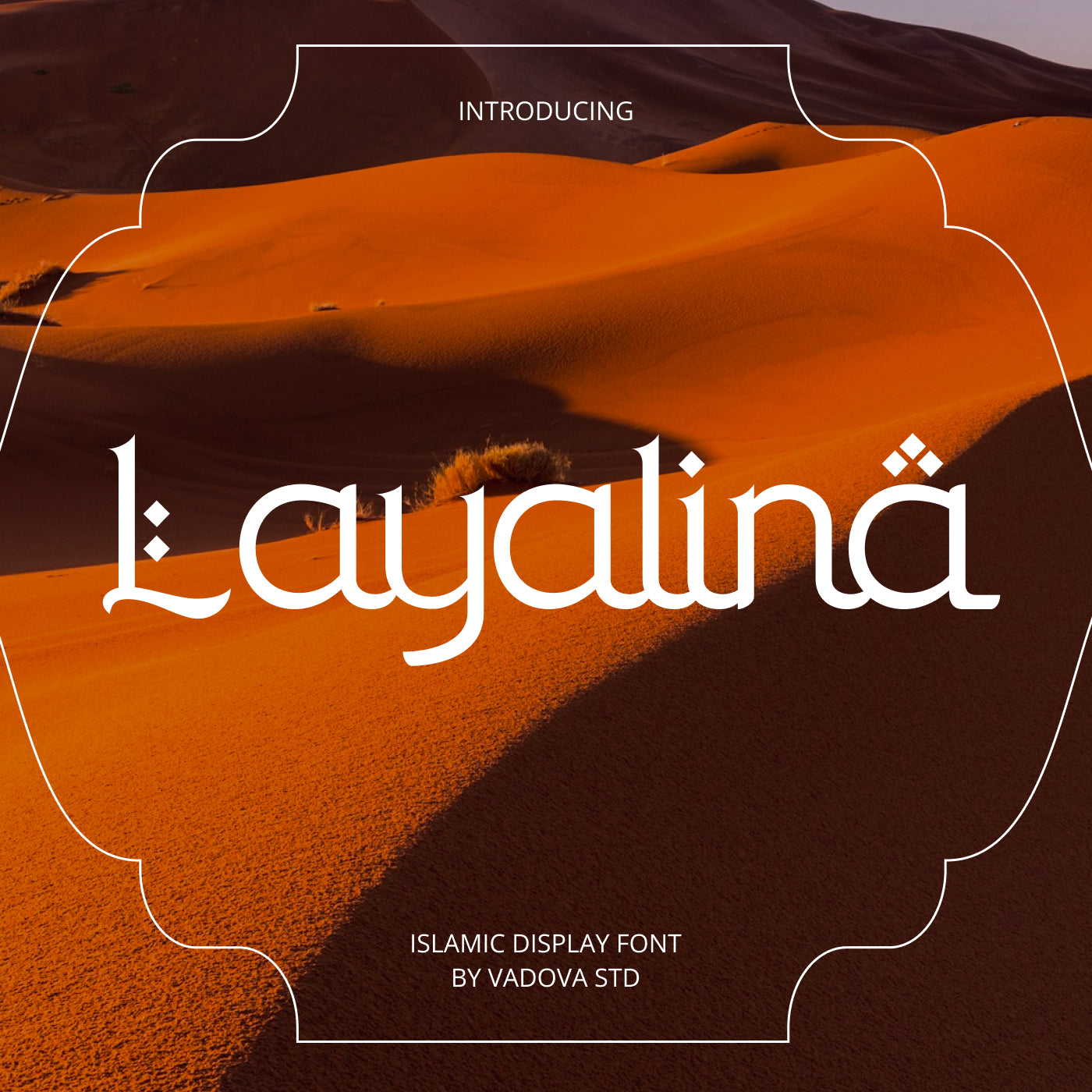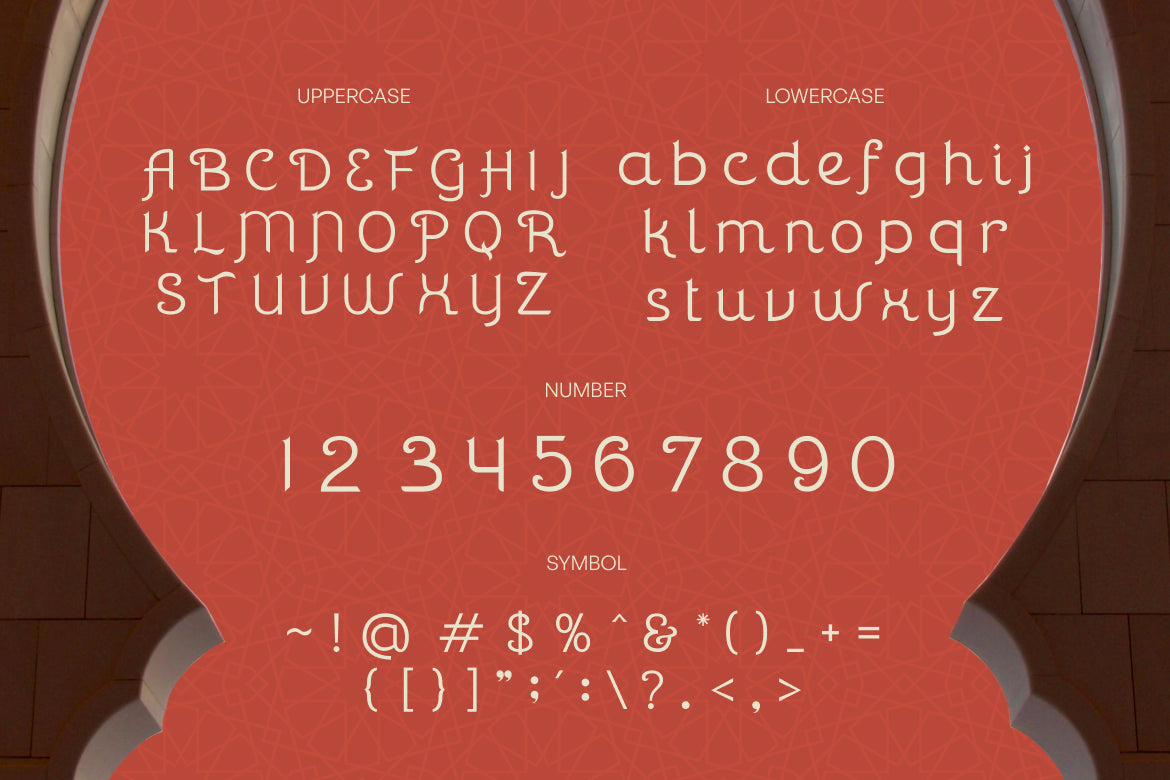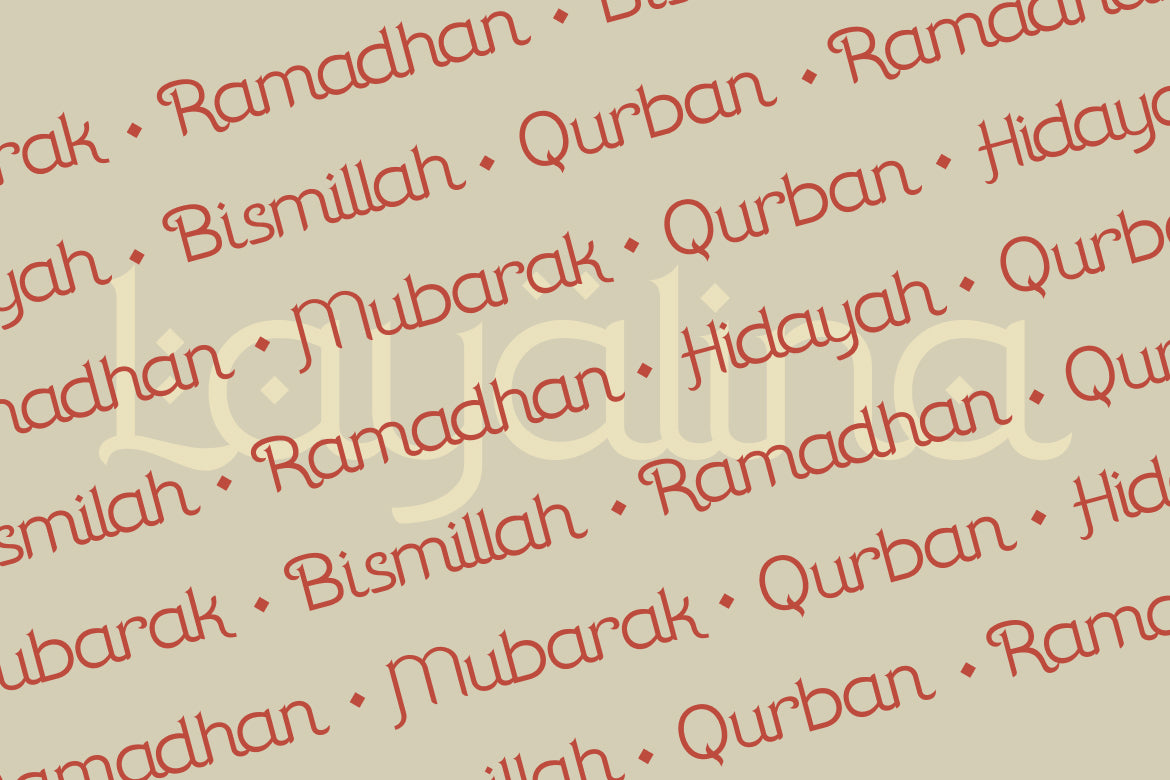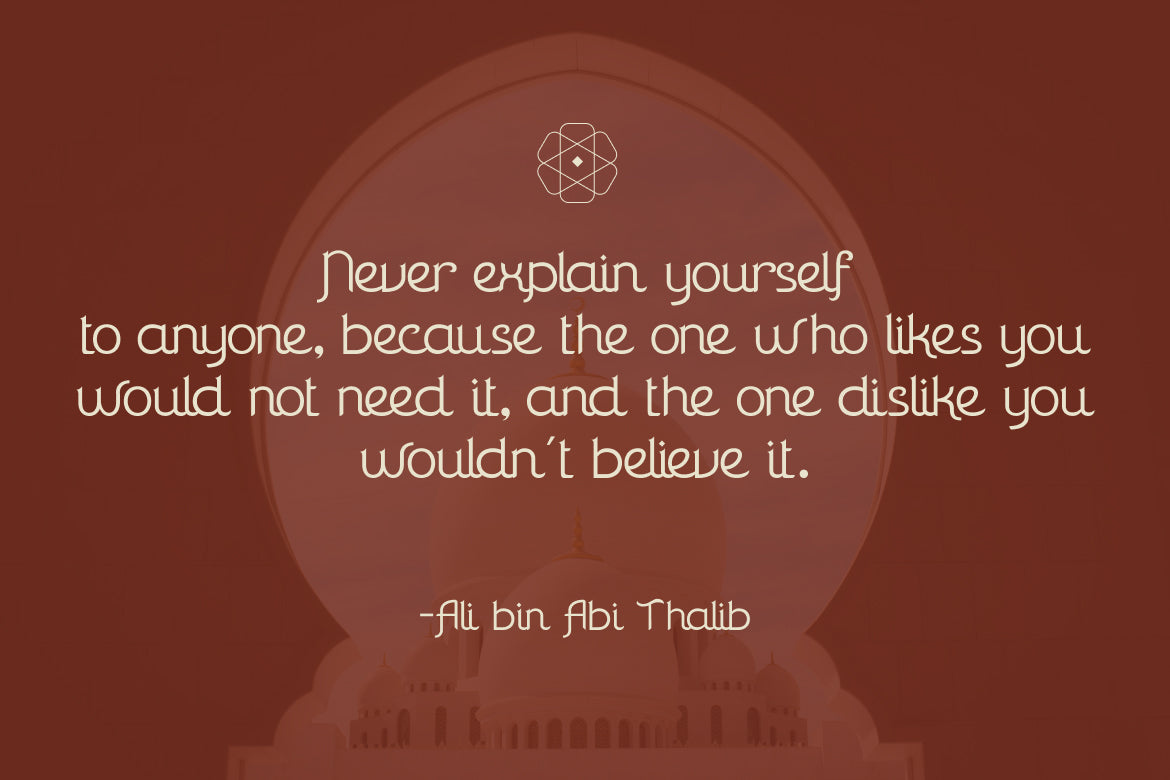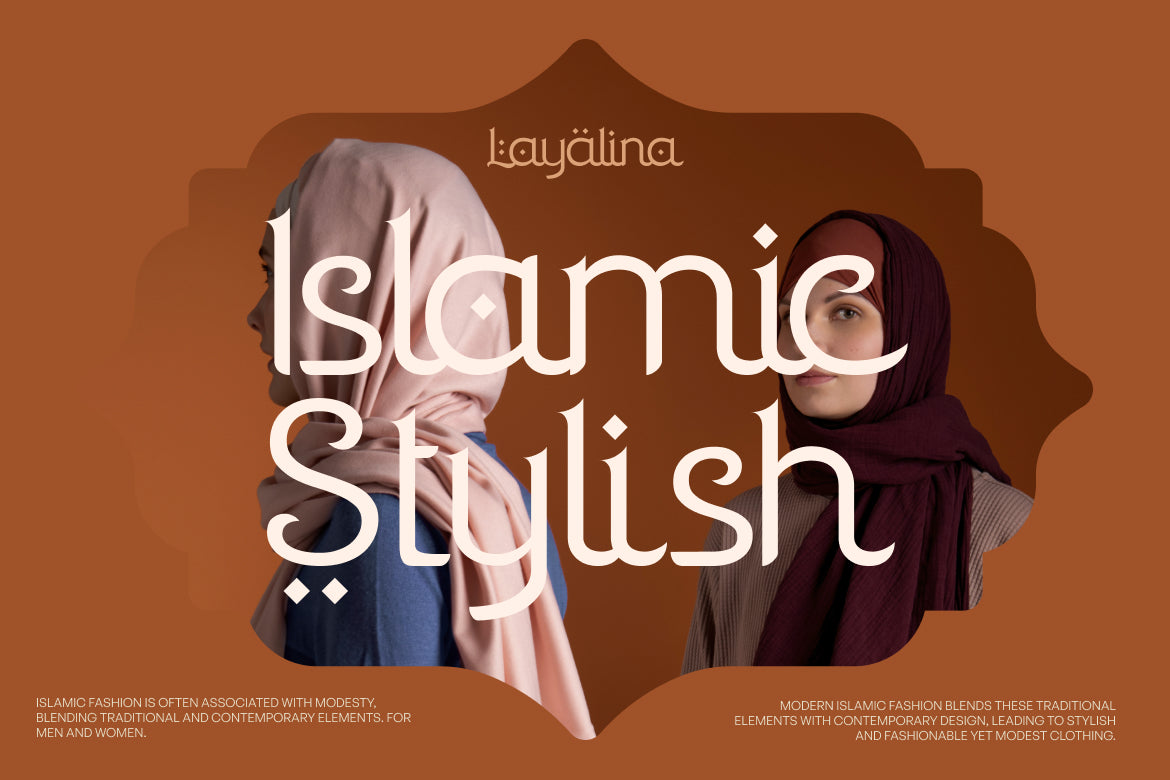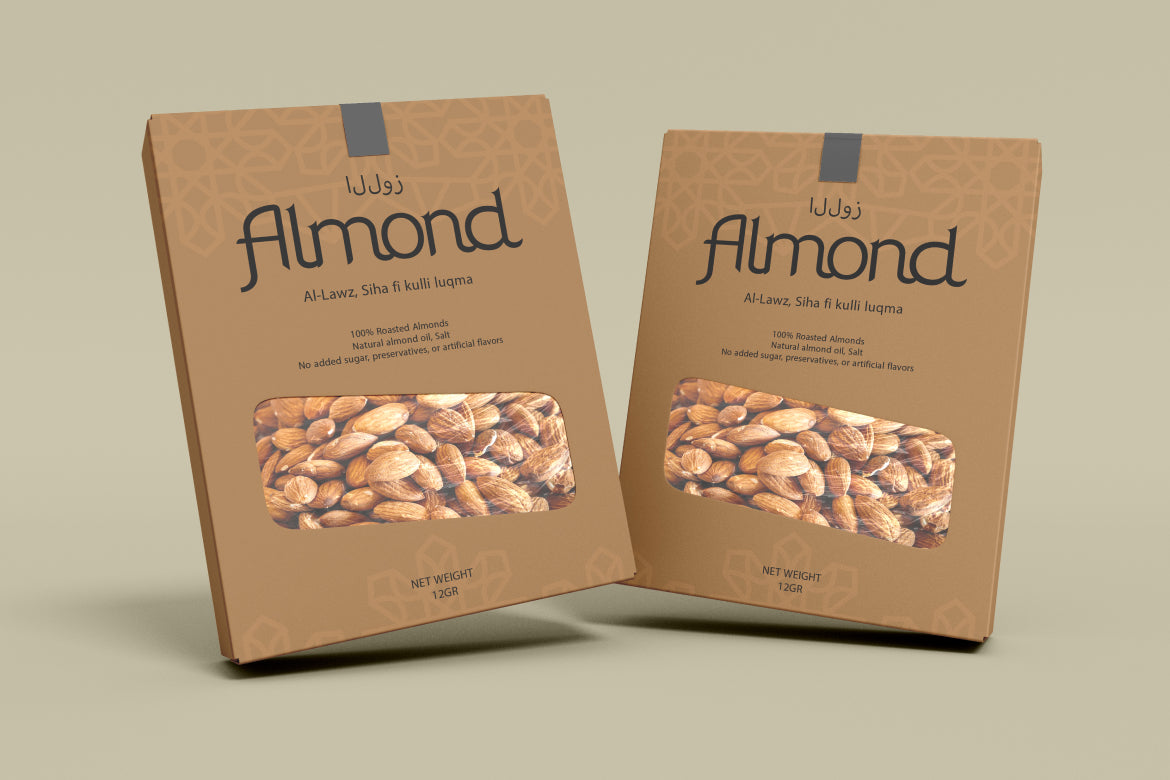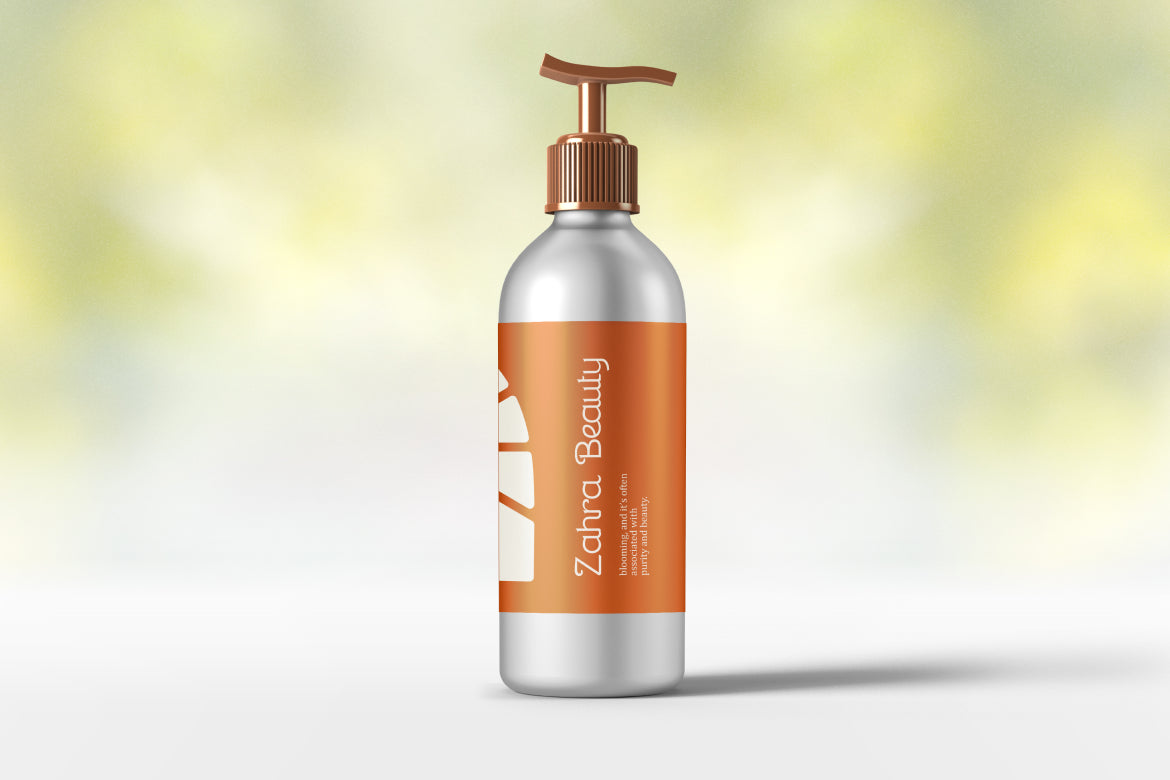
Layalina Islamic Display Font
Layalina is an elegant Islamic display font inspired by the timeless beauty of Middle Eastern calligraphy and contemporary Arabic aesthetics. Designed with graceful curves, refined proportions, and ornamental diamond accents, this typeface brings a sophisticated cultural character while maintaining excellent readability. Its distinctive letterforms create a luxurious visual presence, making every headline and logo feel authentic, artistic, and memorable.
Relevance and Use Case is perfect for projects that celebrate Islamic culture with elegance and authenticity. It is an excellent choice for Ramadan and Eid campaigns, halal food packaging, Islamic fashion brands, luxury hospitality, cultural festivals, mosque publications, book covers, premium invitations, editorial layouts, logo design, restaurant branding, product labels, social media promotions, and sophisticated visual identities that blend tradition with modern design.
Layalina is an elegant Islamic display font that features graceful curves, refined proportions, and ornamental diamond accents, designed for excellent readability. It includes uppercase and lowercase characters, numerals, and punctuation, and is available in TTF, OTF, and WOFF formats.